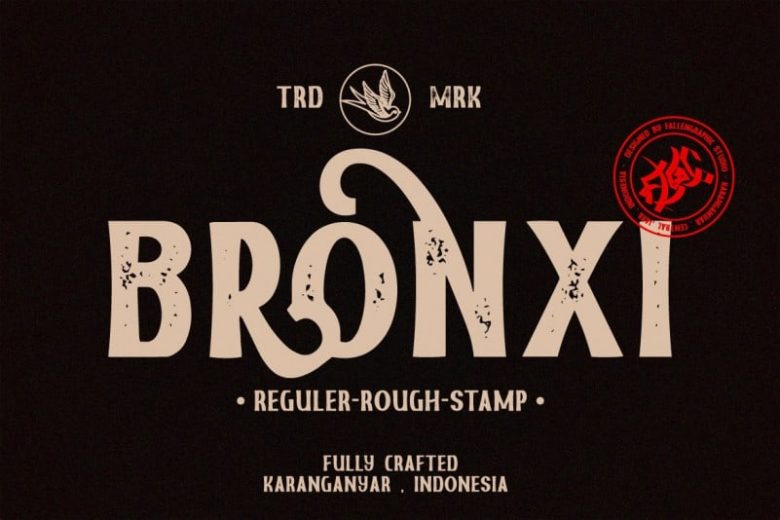
Bronxi Display Font Free
Introducing Bronxi Display Font – A font designed to compliment your design, not take it away from it. Each letterform has been carefully smoothed out, and intentionally curved as if to say. This font is designed and shared by FallenGraphic Studio.
It’s a versatile sans serif typeface that gives a vintage aesthetic. With it’s unique & distinct characteristics it sets itself apart, while also maintaining a strong timeless appeal overall. Textured versions allow Bronxi to be a complete set without the need for 3rd party effects to create a printed look, eliminating a step in the process of finalizing your piece.